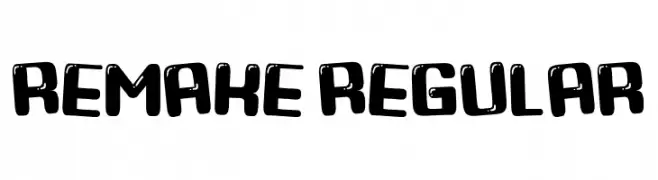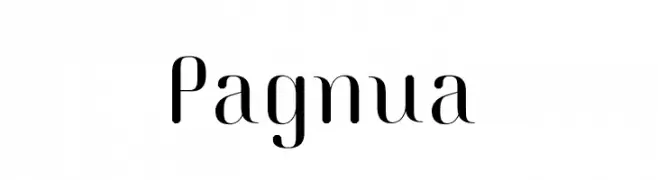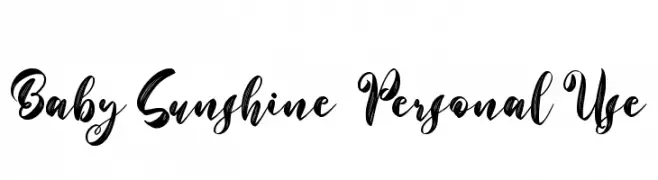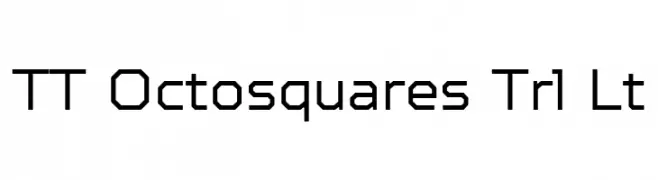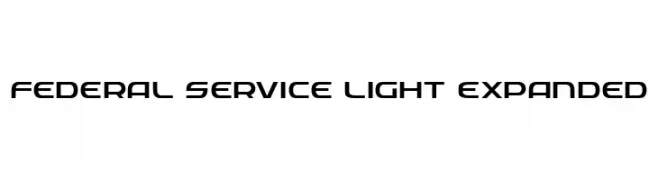
A bold, playful font with a hand-drawn, vintage feel.
A modern-vintage font with elongated, narrow letterforms and rounded edges.
A bold, expressive script font with a lively, handwritten style.
A modern, geometric font with clean lines and angular shapes.
A casual, flowing script font with a modern, handwritten style.
A dynamic and elegant cursive script font with smooth connections and moderate contrast.
A pixelated, decorative font made from plus signs, offering a retro digital look.
A bold, graffiti-style font with a distinctive dripping effect.
A modern, geometric font with a light weight and expanded width.
A dynamic, cursive font with a handwritten style and smooth, connected strokes.